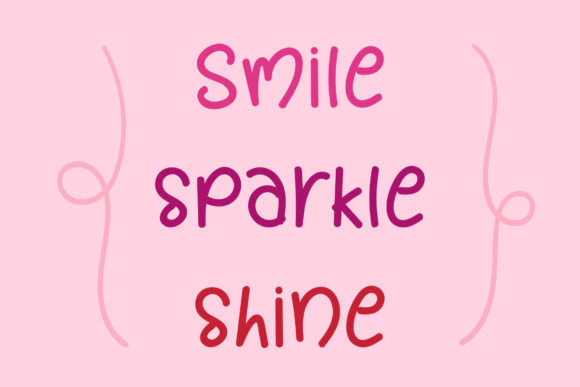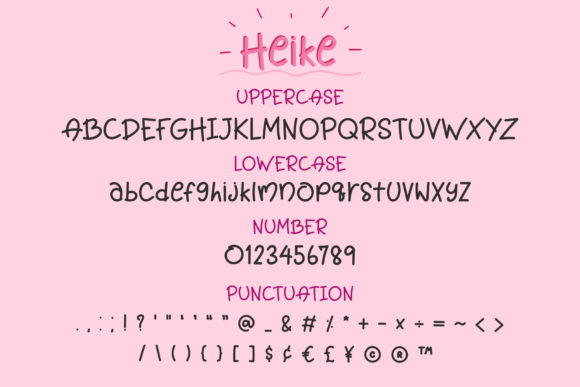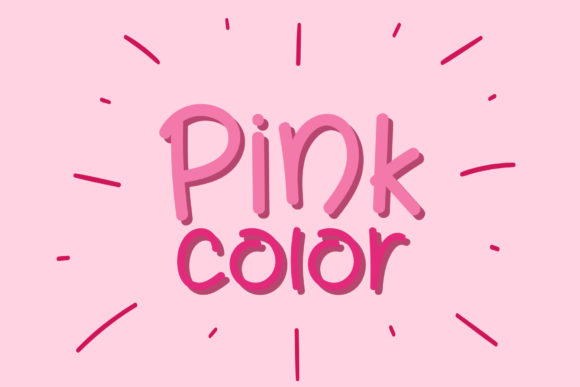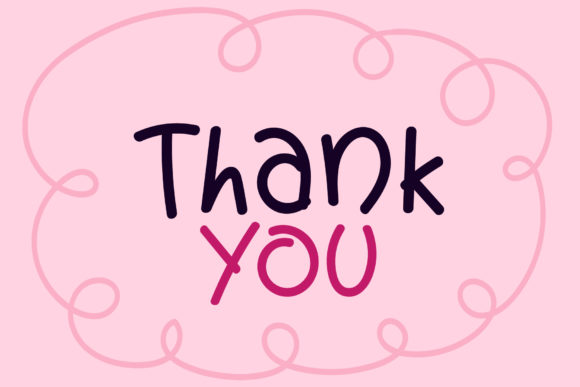
Heike Font
Heike is a fun handwritten font. Clean and a little bit quirky, this font is the perfect fit for all of your logos, branding, social media, and crafty DIY projects.